Fontenay-sous-Bois - Visual identity
A new logo that modernises the city century-old symbolism
Located in the Val-de-Marne, Fontenay-sous-Bois is a town 3 km away from Paris. It has a population of just over 53,000 and is characterised by its pleasant living environment, particularly thanks to its proximity to the Bois de Vincennes. A long history of social and environmental mobilisation has also shaped its present-day face.
Graphéine redesigned the visual identity of Fontenay-sous-Bois with two objectives in mind: to infuse dynamism and modernity while preserving its historical representations inscribed in its century-old motto: "Querno sub tegmine fontes", which translates as "the fountains under the oak foliage".
A new logo that honours the legacy of Fontenay-sous-Bois
To evolve the Fontenay-sous-bois logotype, we first analysed the design of the current logotype. It appeared that the pixelated style of the oak tree silhouette was a problem. The figure of the oak tree is not legible and the "pixel" treatment, once synonymous with computer modernity, now reflects a dated image. The "fountain" dimension, materialized by a "blue wave", gives the feeling of being a parody of the famous Nike "swoosh" logo.
In order to keep the symbolic codes of the city alive, we went back in time to study the city's archives and the different incarnations of its coat of arms.
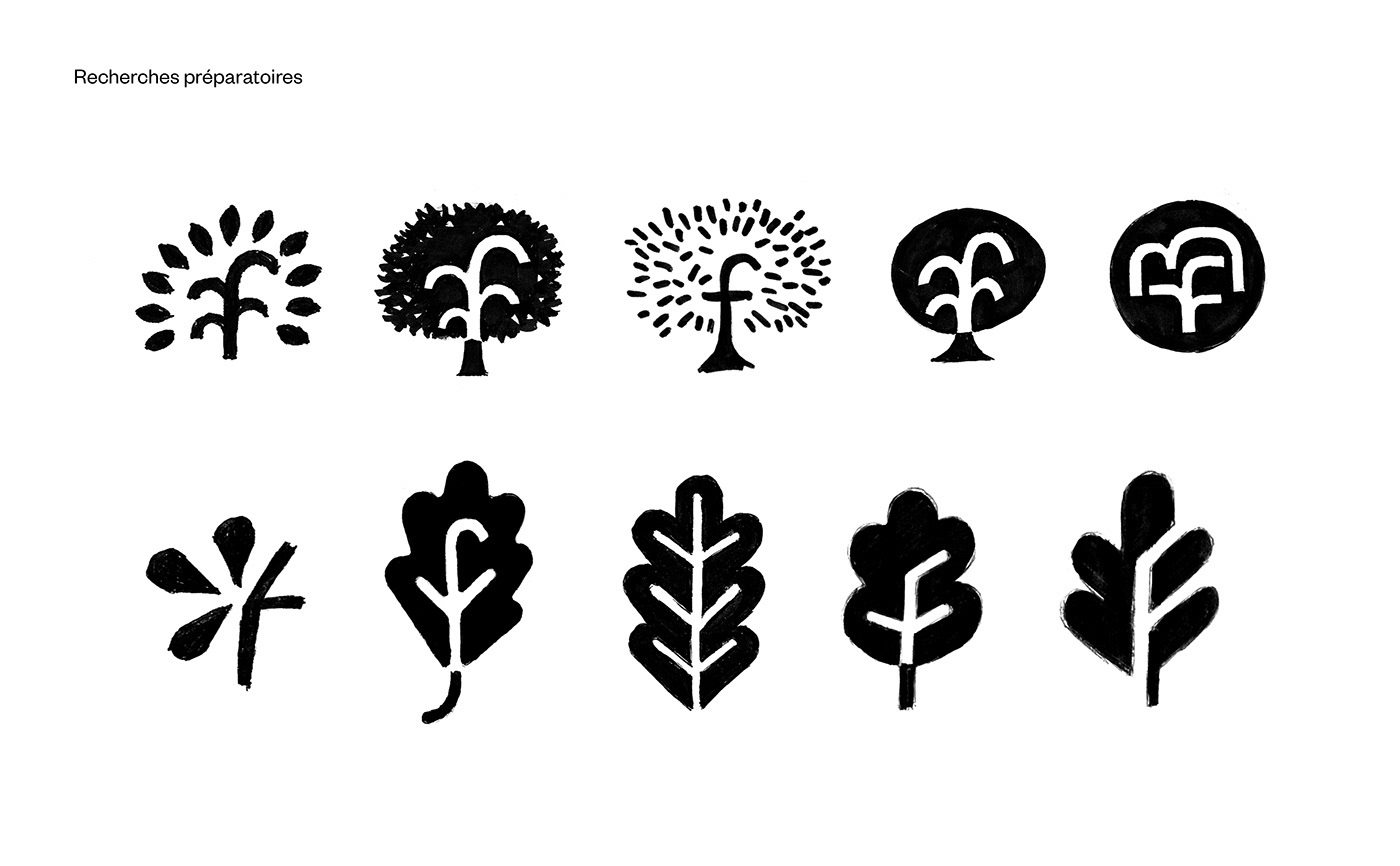
A new logo revitalises the city's century-old features
The oak tree has been present in the coat of arms of Fontenay-sous-Bois since the 20th century. It represents the Bois de Vincennes. The fountain at its foot evokes the many streams that once flowed. The oak is the tree of strength and tradition. The fountain represents the source of life. From its gush springs dynamism. In order to create a new 'iconic' emblem, we had to bring these two elements together in a clever way to create an emblem that was original, easily memorable, distinctive (identifiable among other municipal logos) and appropriate (it is indeed elements seen in the motto).
The oak leaf has a shape that is perhaps the most characteristic and identifiable of all tree leaves in France. On the other hand, and even more so as a pictogram, it is less obvious to determine the nature of a tree by its overall shape.
By synecdoche (a figure of speech that consists in taking the part for the whole), we have therefore chosen the oak leaf as the starting point for the new logotype. Here it becomes unique as it intertwines with the gushing figure of the fountain. This design is also special in that the letters F, S and B, the initials of the city, appear in its gaps, which are also the veins of the leaf, thus creating an osmosis between the symbol and the written word.
A new graphic guidelines for the city and its inhabitants
To complete the expression of this new brand, we have redesigned the city's entire graphic guidelines, starting with a new main colour palette consisting of Oak Green, Fountain Blue and Citizen Blue.
Fontenay-sous-Bois now has the Founders Grotesk typographic family distributed by KlimType foundry. This typeface was chosen for its simplicity and legibility on any communication medium, both in upper and lower case. The graphic system was designed to be easily adapted and used internally or in a poster campaign. The composition grid ensures consistency across all media and that each element is easy to read. The Fontenay-sous-Bois emblem in wire frame dresses up the graphic composition without overloading it. A secondary colour palette entitled "Palette de couleurs des saisons" will be used to enhance event-based communications.
The new visual identity of Fontenay-sous-Bois reinforces the values of the municipality through a dynamic, warm and welcoming design for a city that is human and supportive.